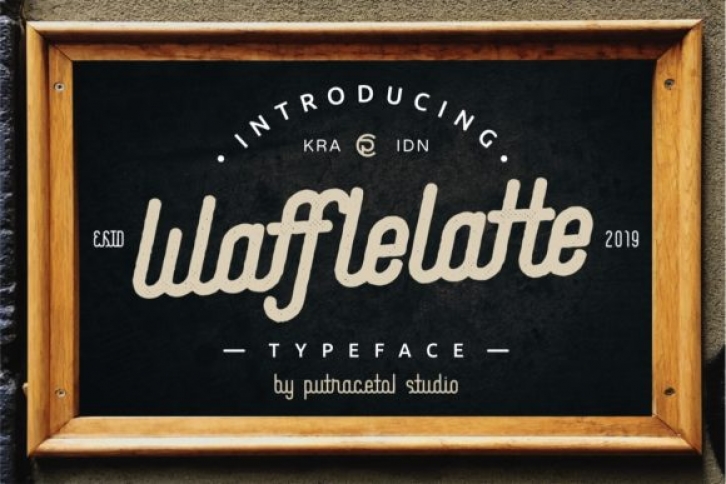
The Waffle Latte is a monoline script family. It comes in 2 weights (regular and bold), and 8 styles.
It can be used to create an awesome logo, branding, letterhead, invitation, quote, print, card, clothing brand, and much more!